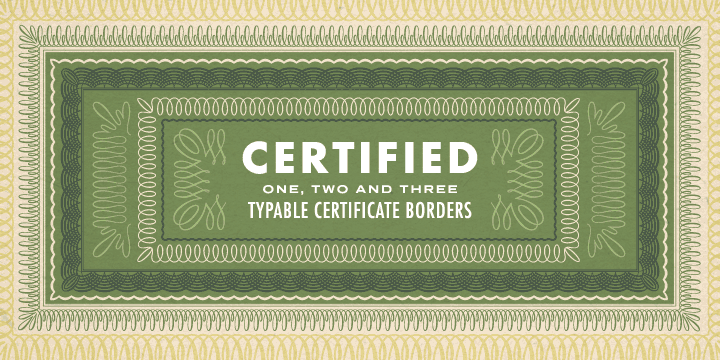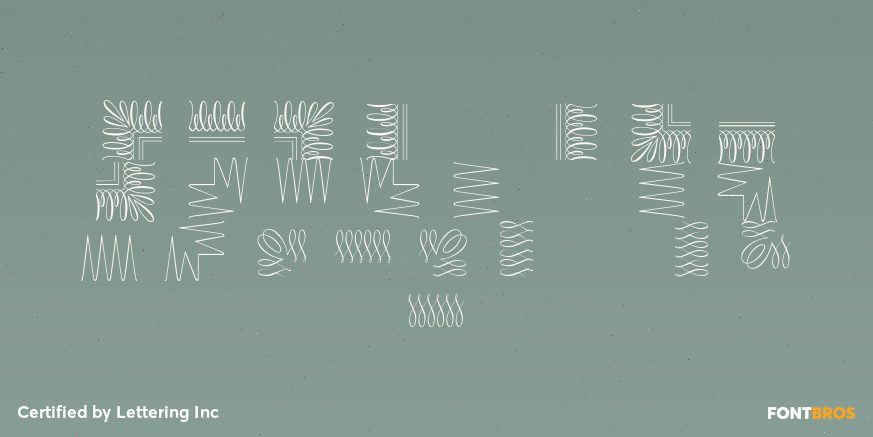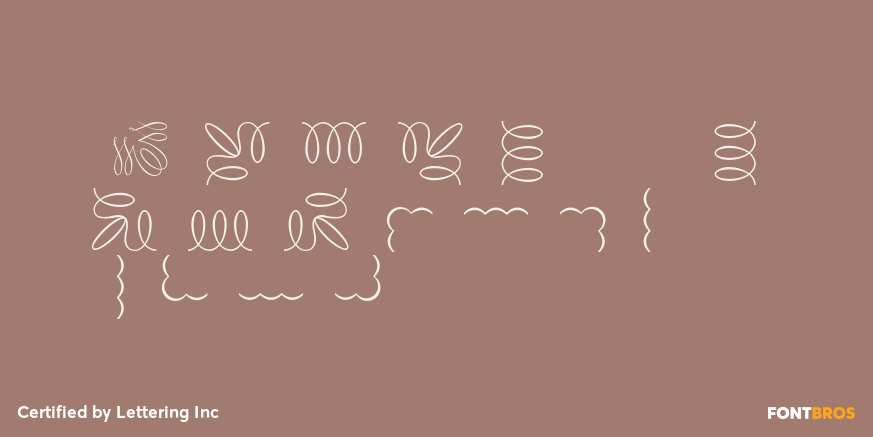
Certified
Font Family by Lettering Inc
The Certified typeface series was born out of a need to give designers the ability to embellish their designs with high quality certificate borders that could be scaled to any application easily.
Rather than scale a static image and end up choking up your design with too much border and not enough space, Certified allows you to create beautiful ornate certificate borders that can be scaled to the correct thickness and shape to fit any size document or image area.
Each font includes five amazing certificate border designs and a PDF user manual that explains quick and easy methods to build a border using Certified. Click the PDF Manual link to see how Certified works!